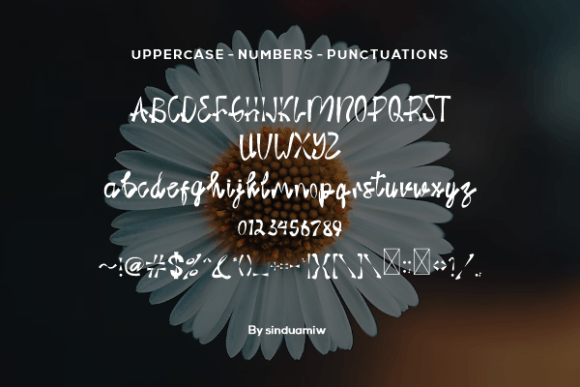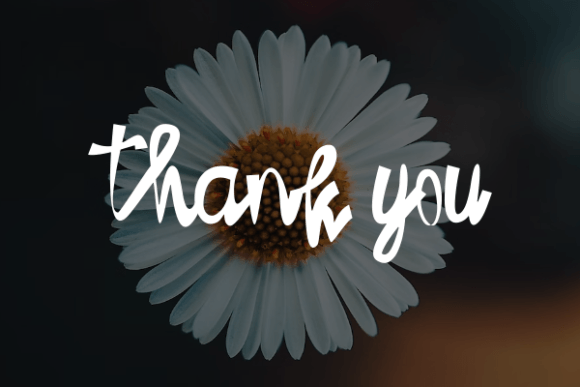
Swiszilan Font
About Swiszilan Font
Swiszilan font is a bold and unique handwritten typeface that commands attention. Designed with a distinctive style, it perfectly suits loud and eye-catching designs where creativity and personality are a must. Whether you’re working on posters, magazine covers, quotes, invitations, or business cards, Swiszilan adds a vibrant and artistic flair that helps your work stand out from the crowd.
Bold and Expressive Handwriting Style
Swiszilan is crafted to bring a lively and dynamic handwritten feel to your projects. Its bold strokes and irregular, organic shapes give it a natural yet dramatic look. This font is not subtle—it’s designed to be noticed. Use it whenever you want your design to convey energy, passion, and individuality.
Versatile Uses Across Creative Projects
One of Swiszilan font’s biggest advantages is its versatility. It fits perfectly in various creative scenarios such as:
• Loud and impactful posters that demand attention
• Powerful and meaningful quotes for social media or print
• Eye-catching magazine covers that need a unique typographic voice
• Stylish and memorable invitations for events or parties
• Professional yet creative business cards that leave a lasting impression
• And many other artistic projects requiring a handwritten touch
A Perfect Choice for Modern Designers
Swiszilan font’s distinct personality makes it a favorite among designers who want to break the mold. It pairs well with clean, simple fonts for body text, allowing your headlines and titles to pop without overwhelming the design. The font’s organic shapes and bold curves offer a hand-crafted feel that injects warmth and human connection into digital and print media.
Whether you want to create a striking headline or add a playful accent, this font adapts well to your needs.
Why Choose Swiszilan Font?
If you need a typeface that combines originality with boldness, Swiszilan font is an excellent choice. Its handwritten aesthetic stands out in a world full of generic fonts, giving your designs a fresh, personal touch. From advertising materials to creative projects, Swiszilan font helps your message resonate louder and clearer.
Tips for Using Swiszilan Font
To get the best from Swiszilan font, use it sparingly in your layouts. Pair it with neutral fonts to maintain readability and visual balance. Ideal for headlines, titles, and branding elements, Swiszilan ensures that your key messages grab attention and make a memorable impact.
Its bold style and artistic curves make it perfect for posters, quotes, magazine covers, invitations, business cards, and much more. Add Swiszilan font to your design toolkit and bring your boldest ideas to life with style and personality.